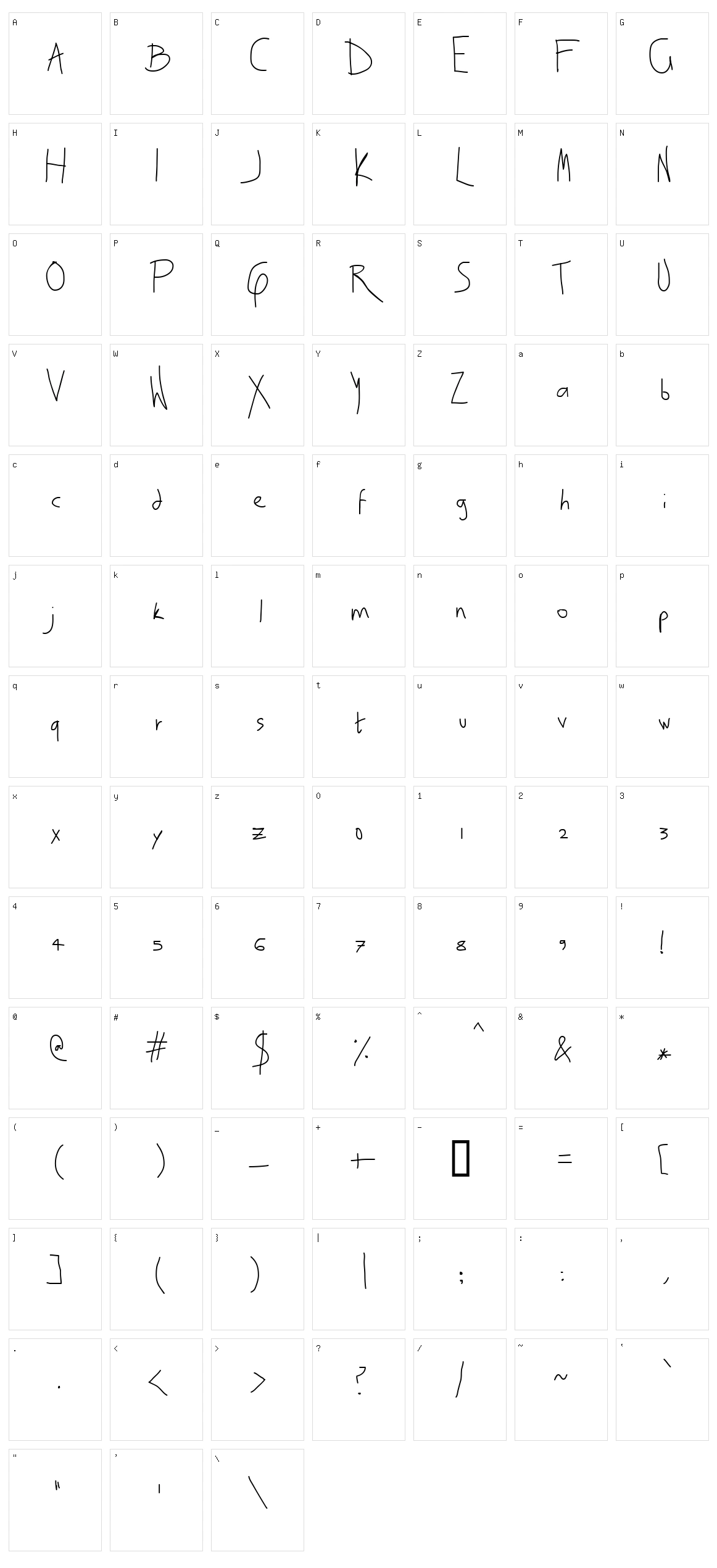
The free font Escape Via Window is carefully designed by Joseph Fox, showcasing a thoughtful balance of creativity and usability and falls under the Script font style. When you download the ZIP file, it contains only 195 KB of font files, making it lightweight and quick to download. Please review the license details below to understand permitted usage and distribution rights. If license information is not available, we recommend using this font for personal projects only or contacting the author directly for commercial usage permissions.